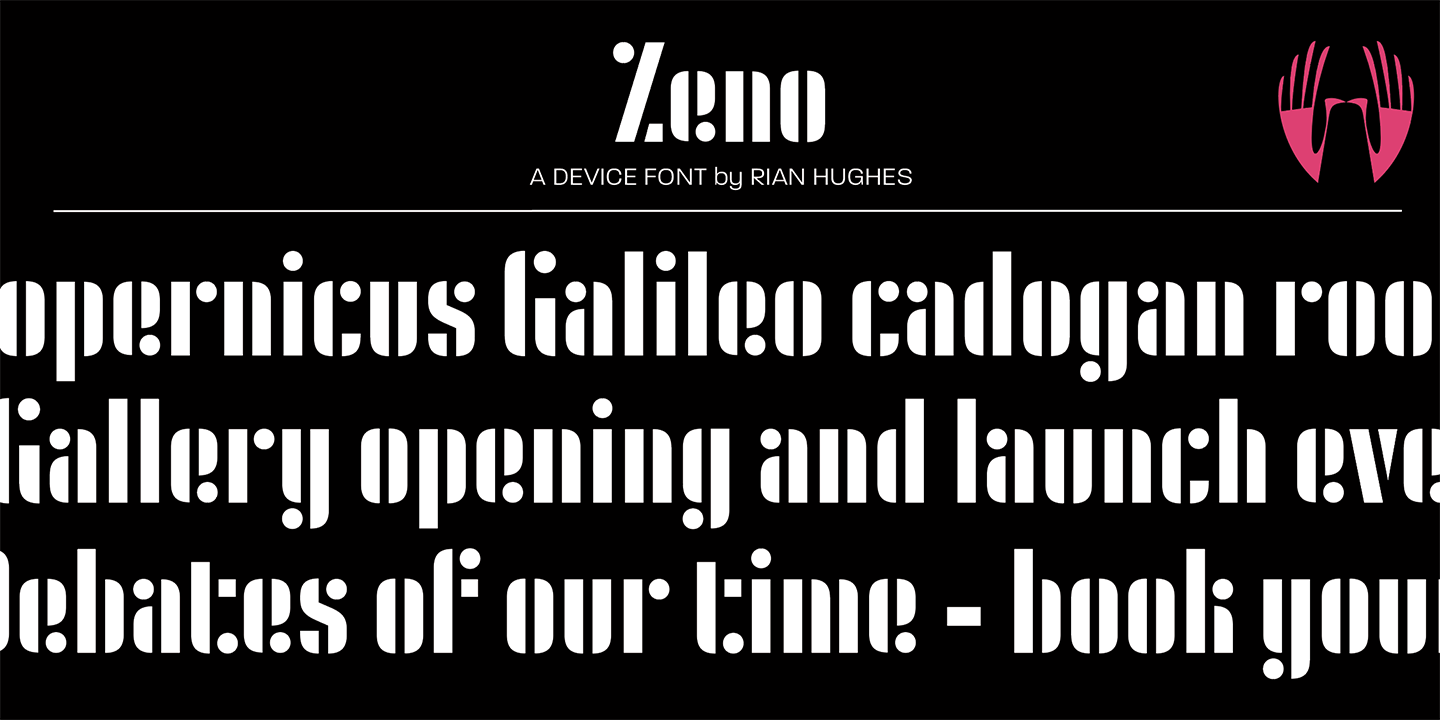
This philosophical typeface excels in academic publications, philosophical journals, intellectual brand identities, educational institution materials, think tank presentations, scholarly book covers, university course catalogs, and research institute communications. Its thoughtful design makes it perfect for projects requiring intellectual depth and contemplative sophistication.
Zeno Font creates excitement through its paradoxical elegance that embodies the timeless pursuit of knowledge and wisdom. The font's balanced proportions and contemplative curves create an atmosphere of scholarly reflection that appeals to audiences seeking intellectual stimulation and meaningful discourse. Its carefully reasoned letterforms deliver profound readability while maintaining distinctive philosophical character that reflects the eternal quest for understanding and truth.
The Zeno Font family features multiple wisdom-inspired variations including regular, light, bold, italic, and small caps styles. Each family member maintains the distinctive scholarly essence while offering different levels of academic formality for various educational applications. This comprehensive collection enables designers to create thoughtful typographic hierarchies that honor intellectual tradition while engaging contemporary minds seeking knowledge and enlightenment.